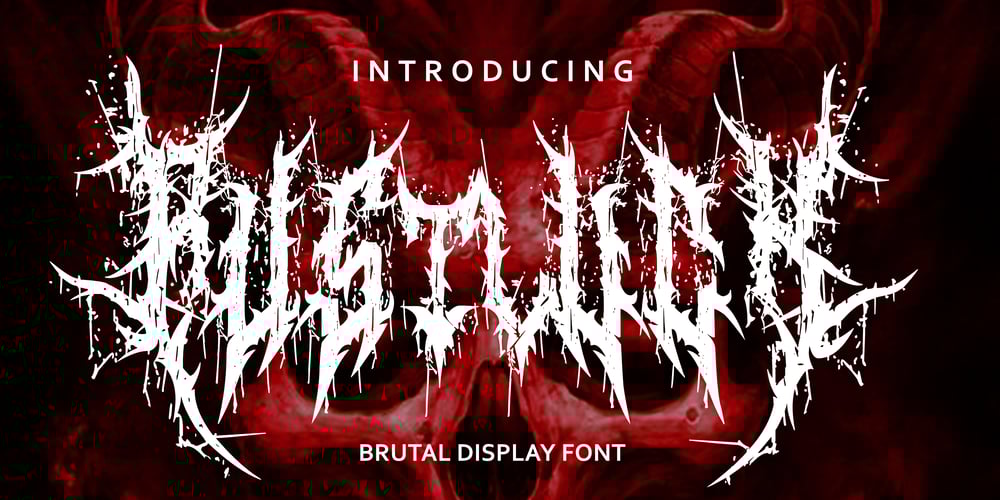
Rustluck Font Family was designed by Zamjump and published by Zamjump. Rustluck contains 1 styles and family package options. Introducing Rustluck, a brutal font display designed for the raw intensity of death metal aesthetics. With its all-caps design and distinctive alternate glyphs for both back and center characters, Rustluck brings forth a primal energy perfect for album covers, posters, music events, stickers, merchandise, video titles, film titles, and beyond.